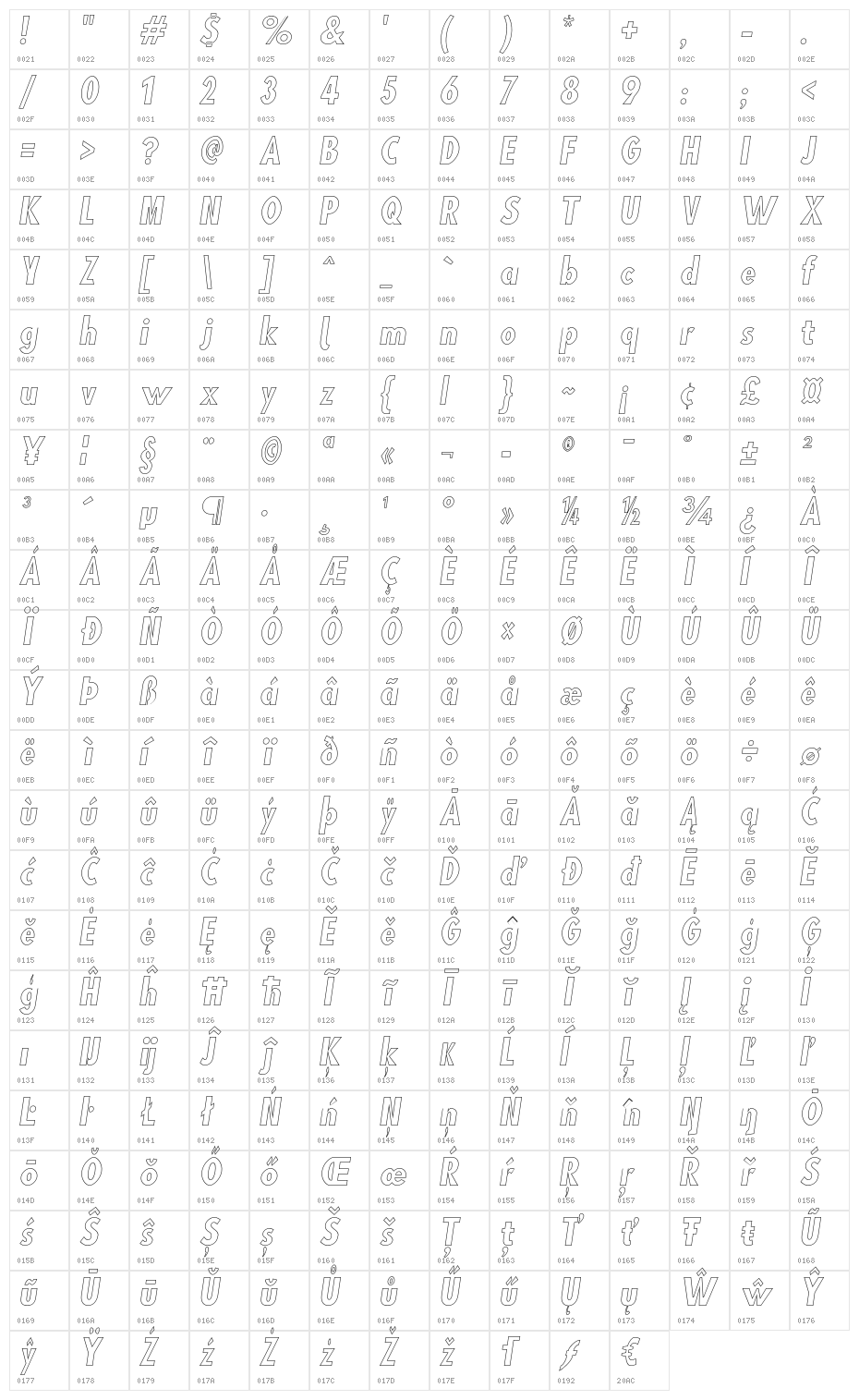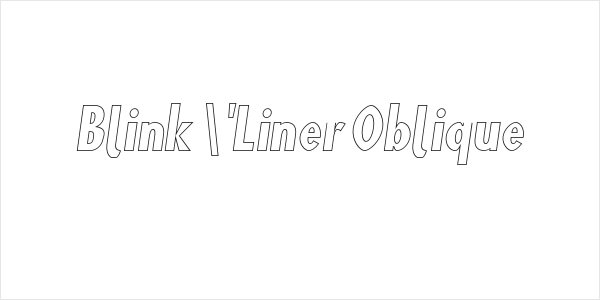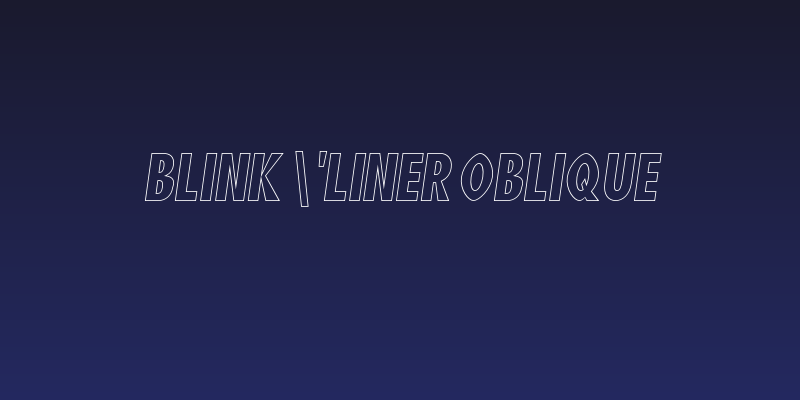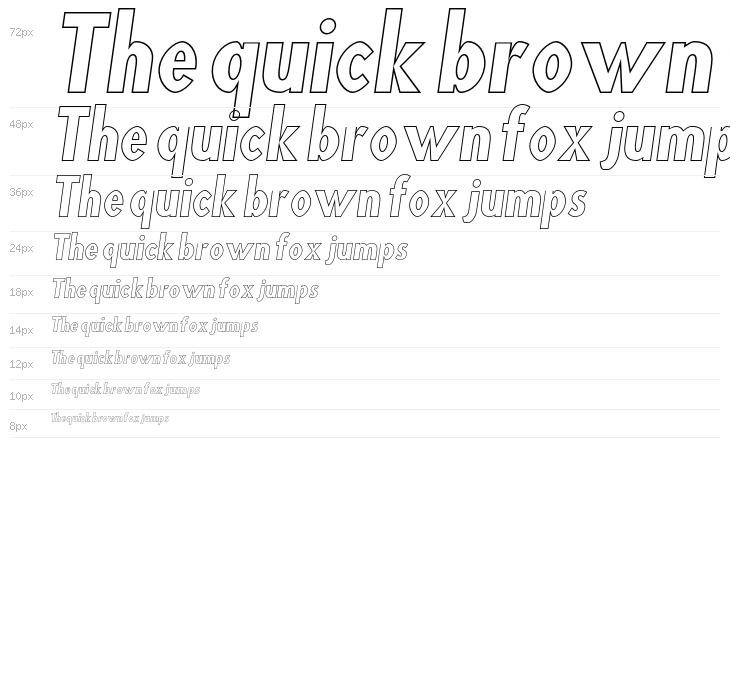
Blink 'Liner Oblique Font
Blink 'Liner Oblique Description
This font features a bold, oblique style with a distinct outline that gives it a modern and dynamic appearance. The uppercase and lowercase letters maintain a consistent slant, enhancing the sense of motion and energy. The numerals and special characters follow the same design principles, ensuring uniformity across all glyphs. The font's open structure and clear lines make it highly legible, even at smaller sizes. Its unique outline style adds a layer of depth, making it suitable for eye-catching designs.
Proposed ProjectsIdeal for branding, posters, headlines, and any design requiring a bold statement.